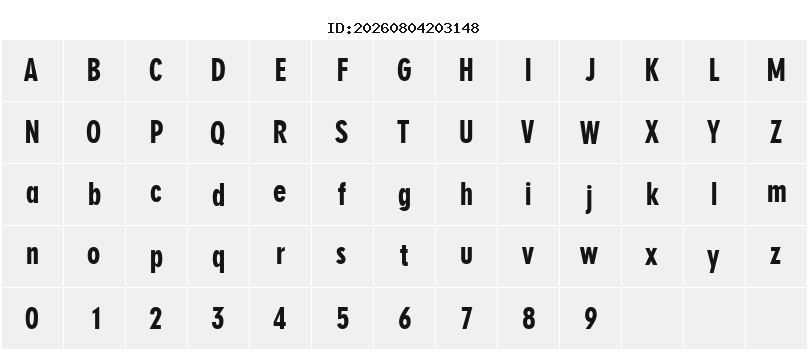
NewSansCond Preview
• Font Name: NewSansCond
• Full Font Name: NewSansCond-Bold
About NewSansCond.ttf
NewSansCond.ttf is a modern, elegant sans-serif font designed for ultimate readability and visual harmony. Perfect for branding, headlines, web design, and print materials.